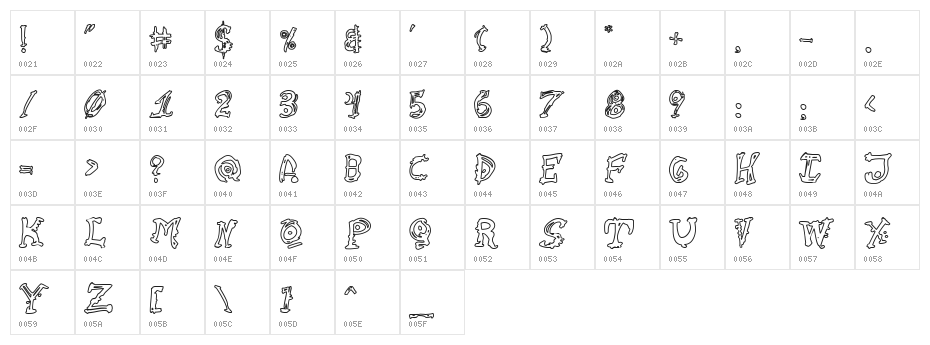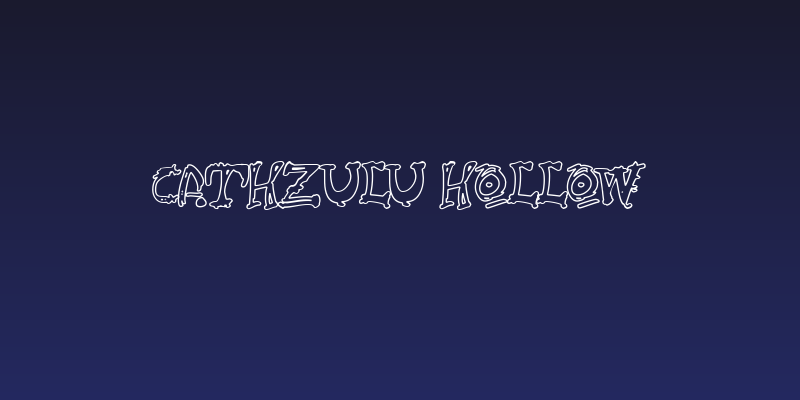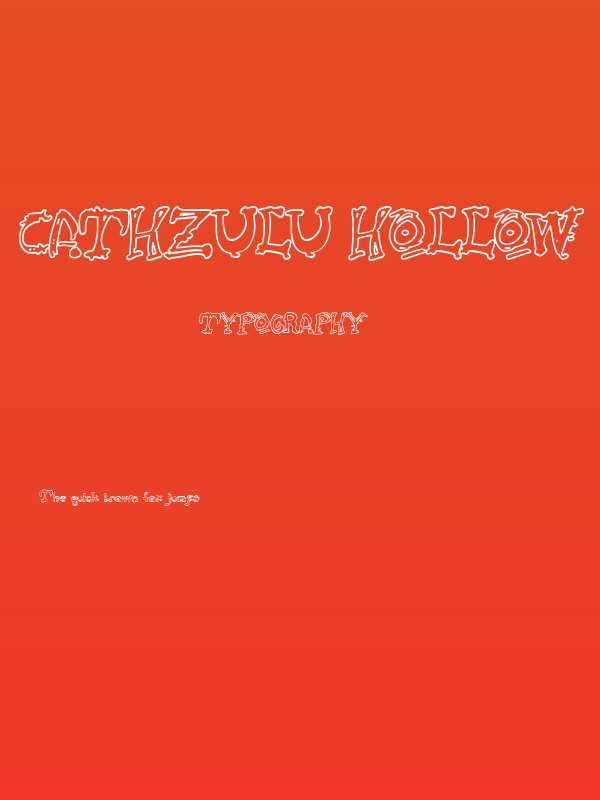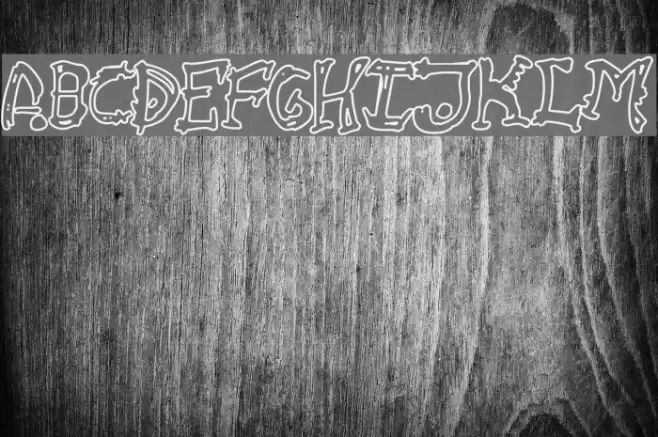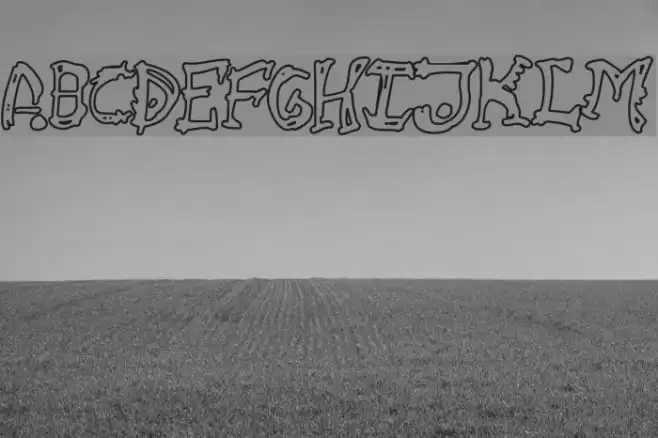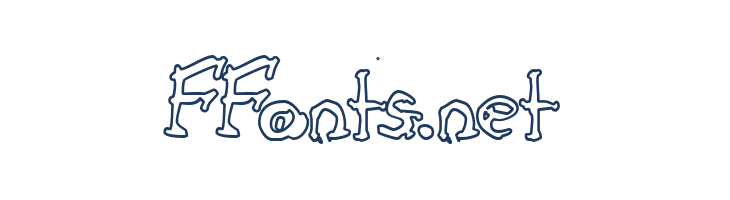
Cathzulu Hollow Font
Cathzulu Hollow Description
This font features a unique, hand-drawn style with a hollow, outlined appearance. Each character is crafted with irregular, playful strokes that give it a whimsical and artistic feel. The uppercase and lowercase letters maintain a consistent style, with quirky, uneven lines that add to its charm. Numbers and special characters follow the same design, ensuring a cohesive look across all elements. The font's hollow nature allows for creative use of color and background, making it versatile for various design projects.